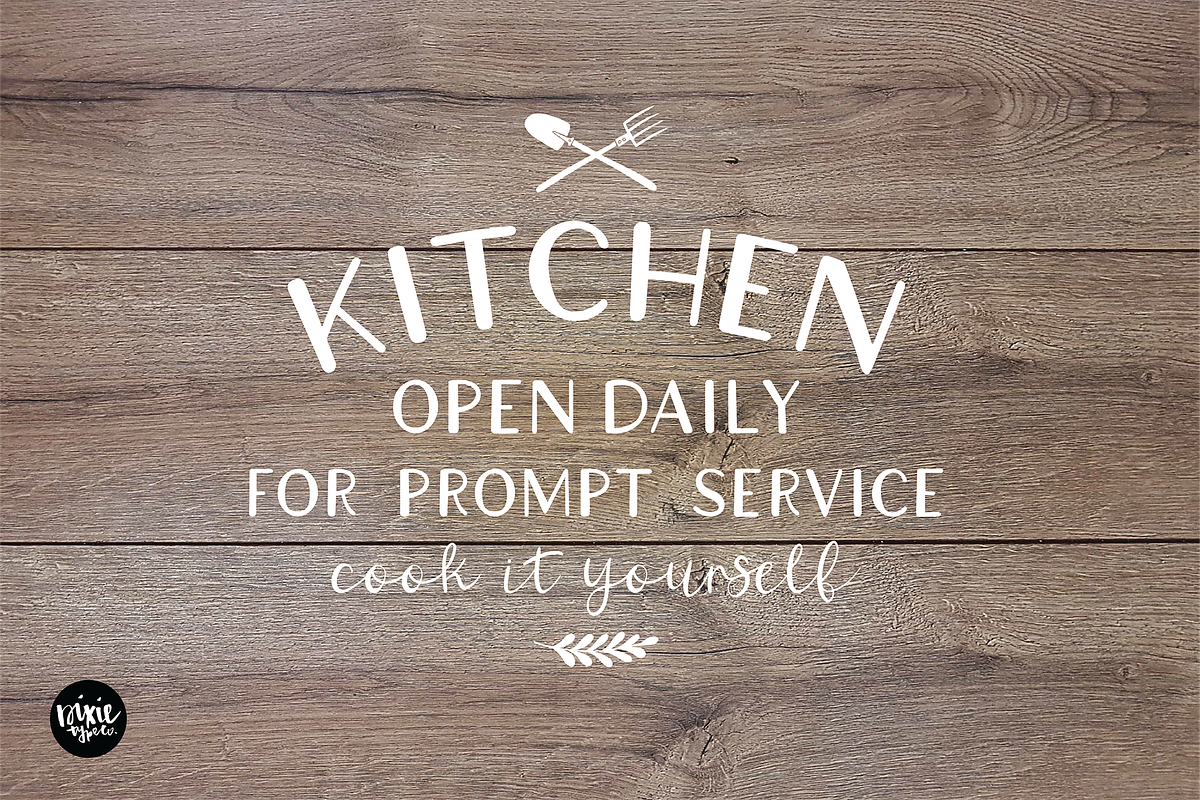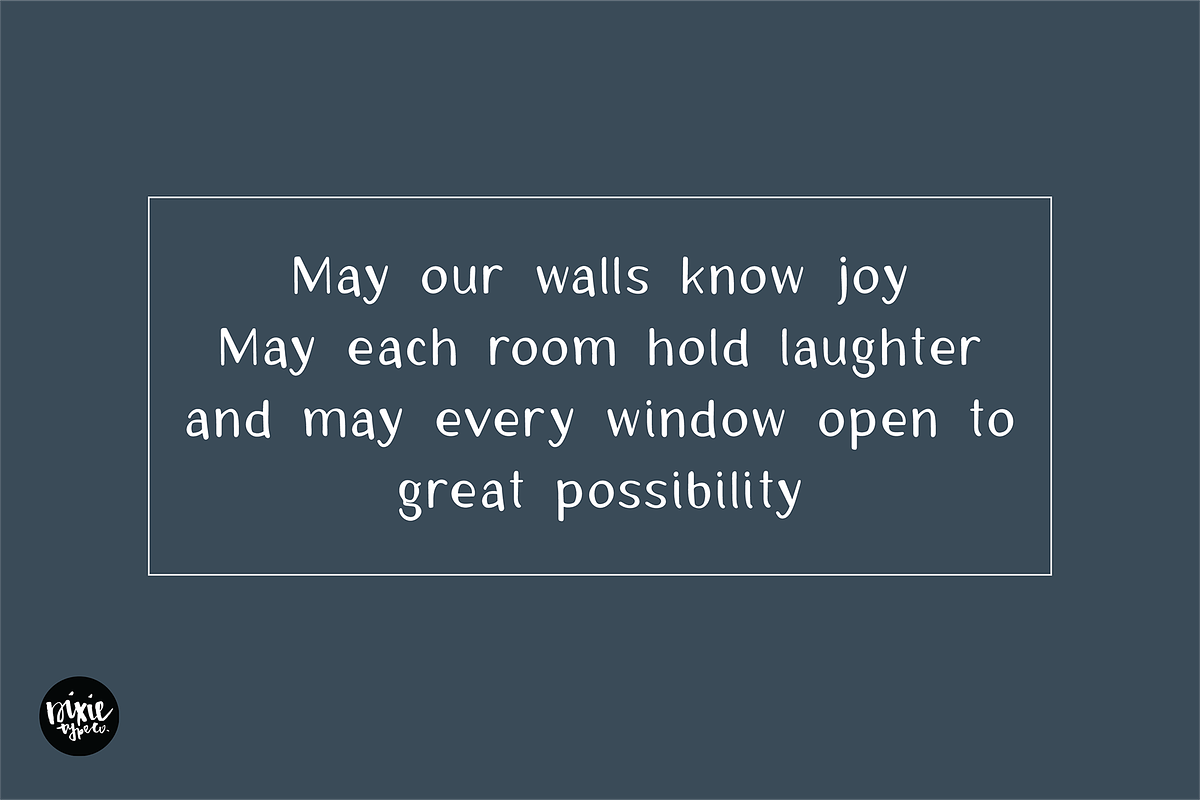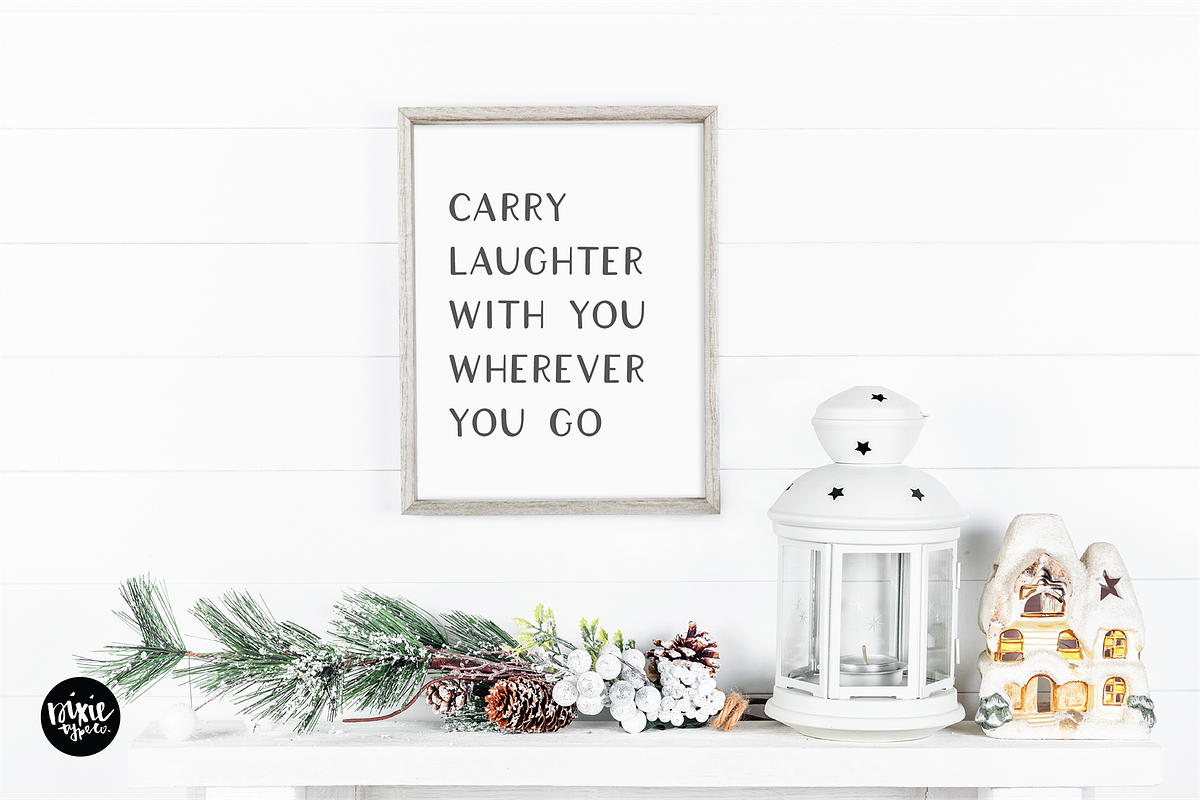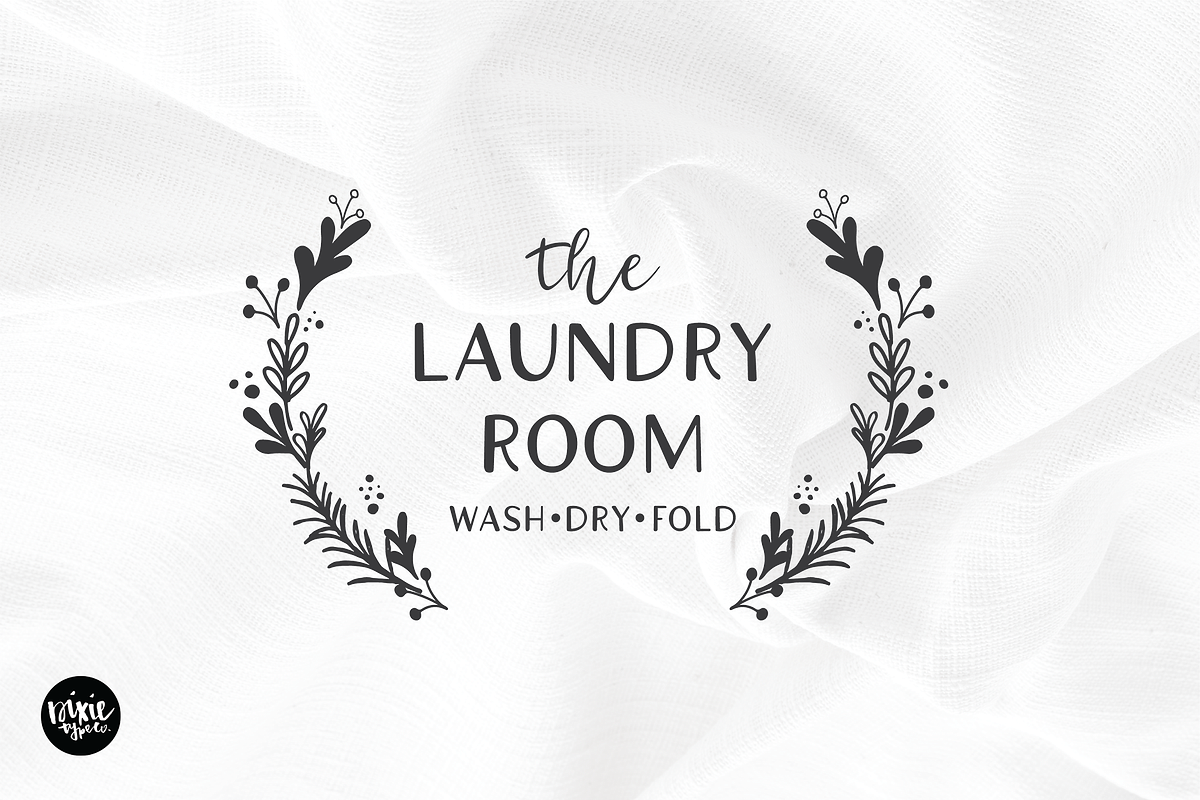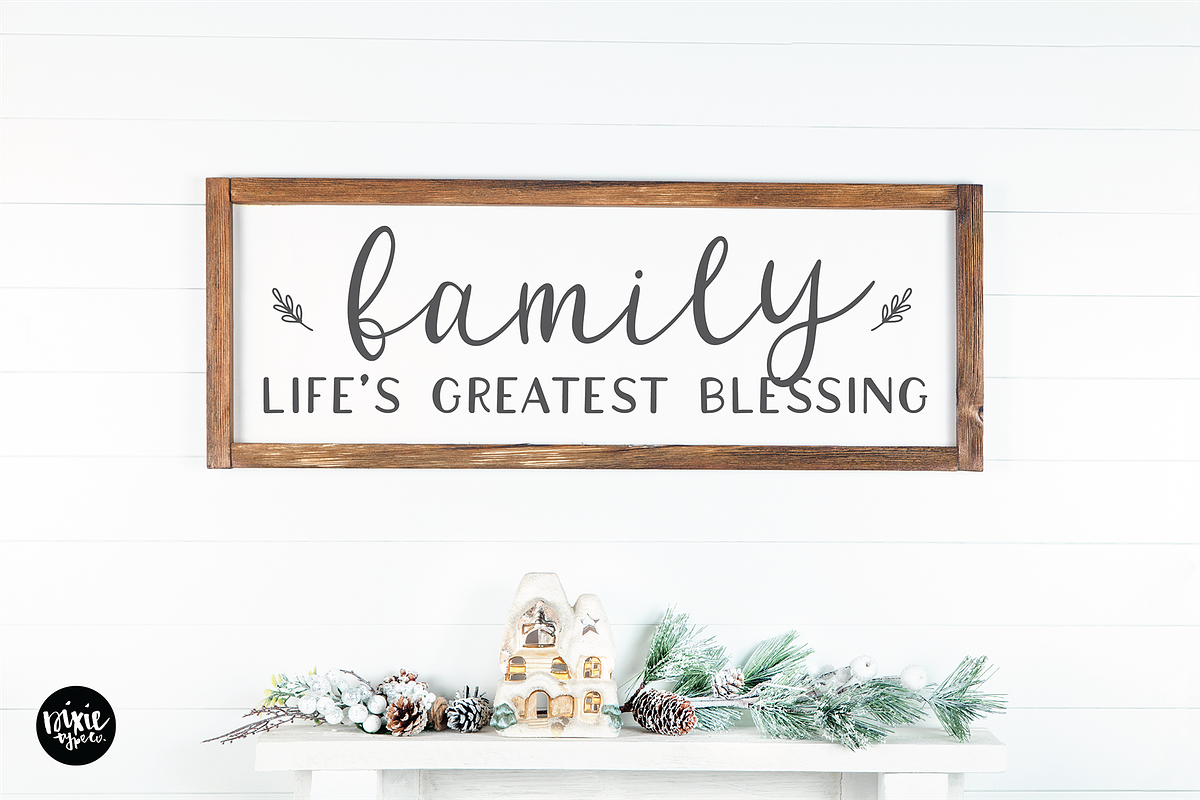
HOMESTEAD Sans Serif Farmhouse Font
"Homestead" Hand-lettered farmhouse font. Perfect for signs!
{ A typographic font hand-lettered with love by Dixie Type Co. }
Homestead is a sans serif lettered font that will compliment any script font. This works great in projects that use lots of text. It was made with rustic farmhouse signs in mind. Check out our other farmhouse style fonts that pair perfectly with this one!
HOMESTEAD Sans Serif Farmhouse Font by Blush Font Co. fits naturally into Branding, posters, packaging, typography.